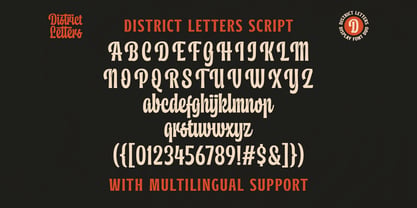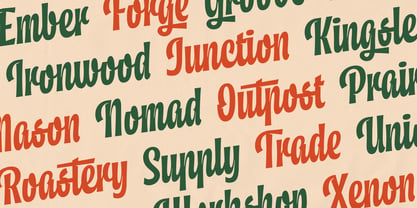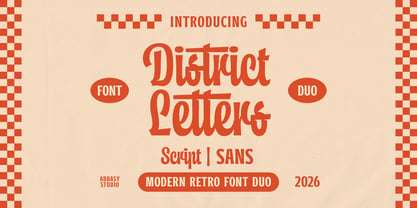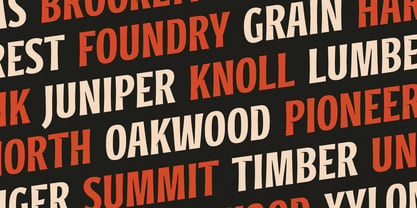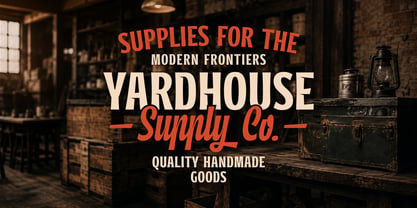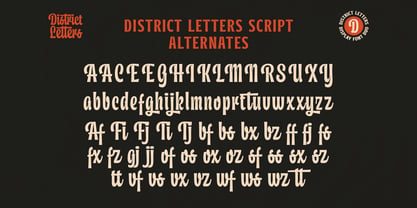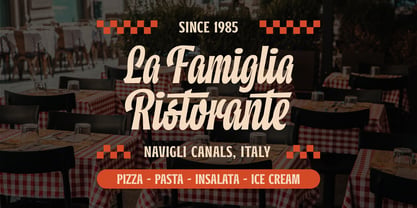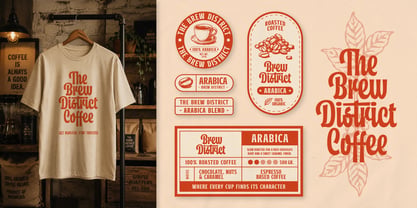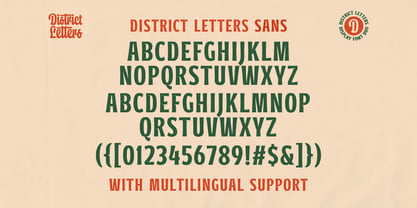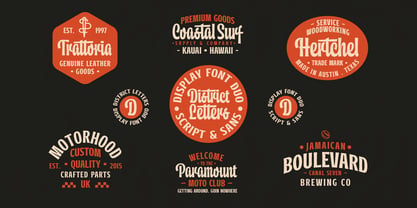
District Letters
by Abbasy Studio
The District Letters Font Family was designed by Angga Kristiandri and published by Abbasy Studio. District Letters contains 4 styles and family package options. More about this family
District Letters — Modern Retro Script & Sans Font Duo
Introducing District Letters, a bold and versatile font duo inspired by vintage signage, independent brands, handcrafted goods, urban districts, and classic retro typography.
District Letters combines an expressive Script with a strong Sans Serif, giving you two complementary styles to create bold and authentic typography. Use the Script for eye-catching headlines, logos, and statement lettering, while the Sans provides structure and balance for supporting text, labels, and layouts.
Whether you're designing a vintage branding, logos, coffee & roastery, record stores, barbershops, apparel, packaging, posters, signage, badges, and handcrafted brands, District Letters brings a distinctive retro character to your work.
• District Letters Script — Regular & Italic
• District Letters Sans — Regular & Italic